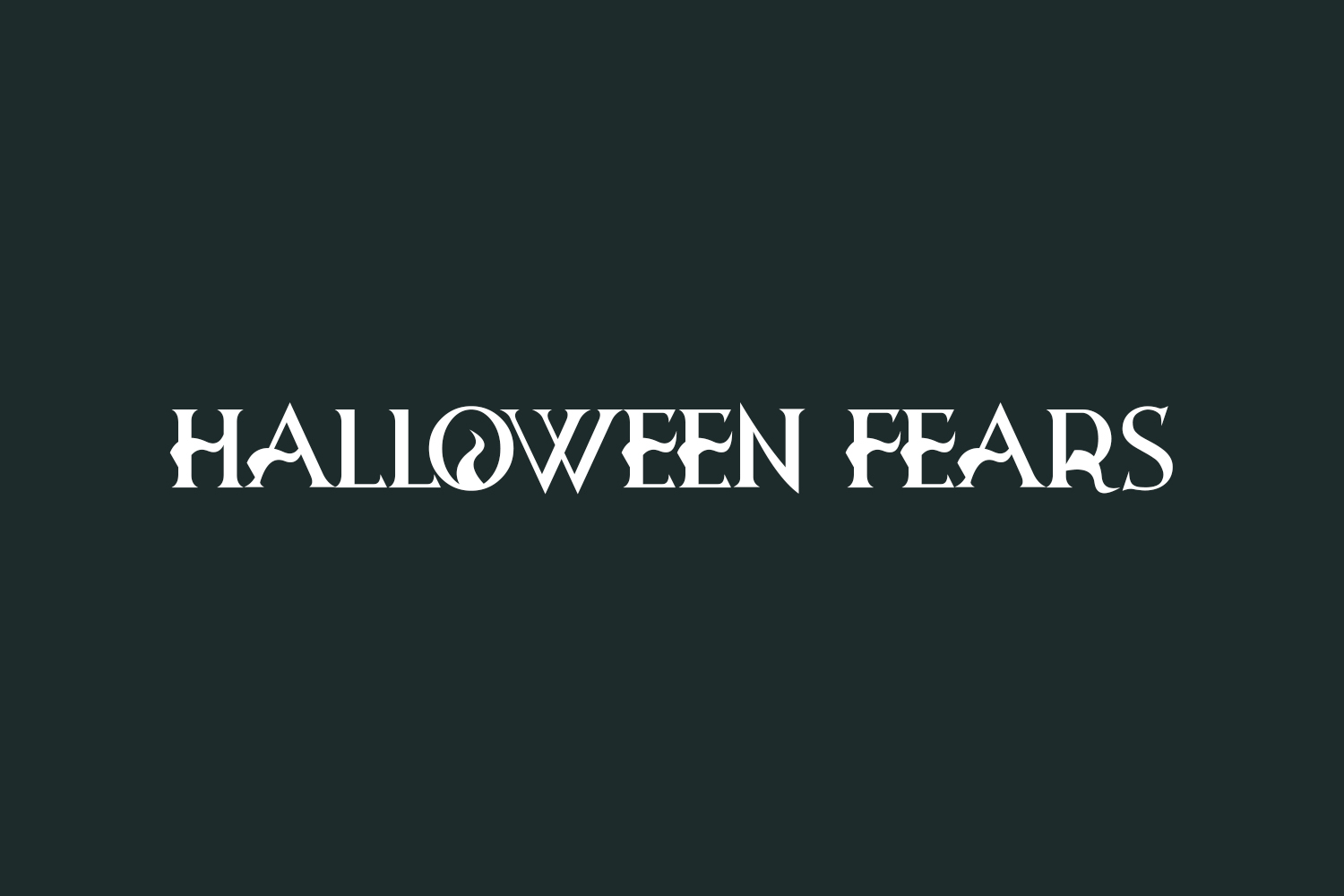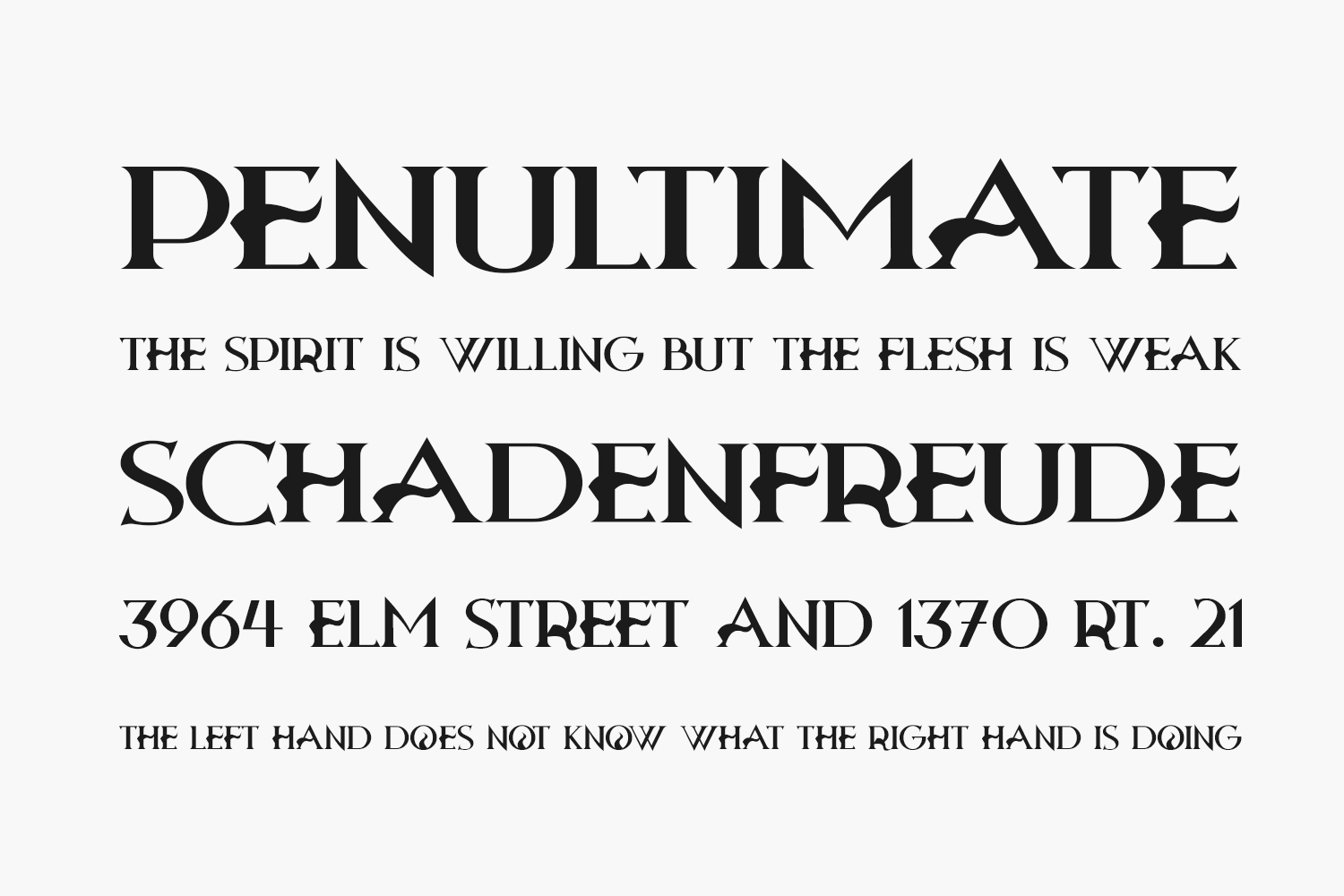
Explore a stunning, vintage font with a decorative Halloween Fears Free Font. Ideal for horror-themed designs, seasonal contexts, and impactful visual projects. Halloween Fears Free Font is free for personal use only. Please purchase the full version for commercial use.